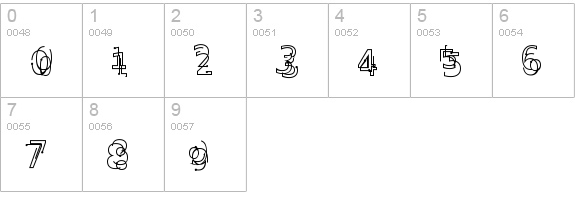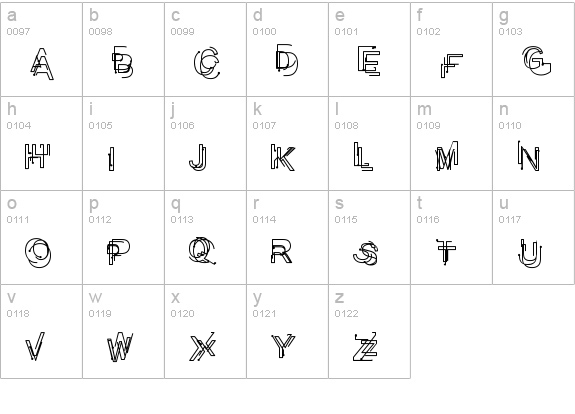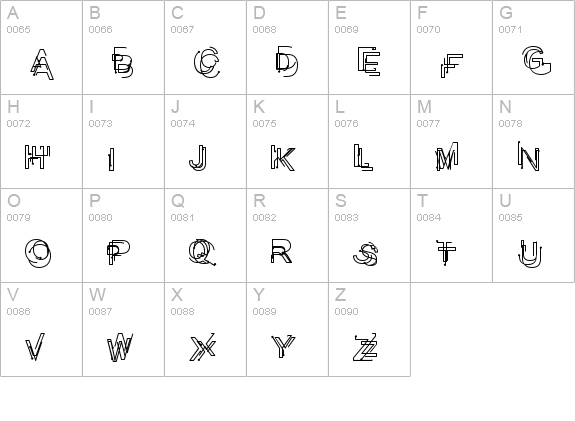
Problematic Piercer Font Details
Introducing the captivating and edgy Problematic Piercer font, a striking display typeface that is sure to leave a lasting impression. With its unique and daring design, this font is perfect for projects that require a touch of rebellion and attitude. Problematic Piercer font is the perfect representation of urban and street-inspired aesthetics, making it an ideal choice for graphic designers, tattoo artists, and anyone looking to add a powerful statement to their work. Its sharp and angular letterforms exude confidence and create a visually arresting impact on any design. What sets Problematic Piercer font apart is its versatility and adaptability. Whether you're designing a poster, album cover, logo, or branding materials, this font effortlessly adds a touch of grunge and rebellion to your artwork. Its detailed and intricate letterforms are crafted with precision, ensuring legibility without compromising on style. And the best part? Problematic Piercer font is completely free! Available to download at FontsMarket.com, this font allows you to unleash your creativity without any limitations. Its freely accessible nature makes it an excellent choice for both personal and commercial projects, giving you the freedom to explore and experiment with endless possibilities. So, if you're ready to make a bold statement with your designs, look no further than Problematic Piercer font. Download it for free at FontsMarket.com and let your creativity run wild. Take your designs to new heights and captivate your audience with this rebellious and captivating typeface.